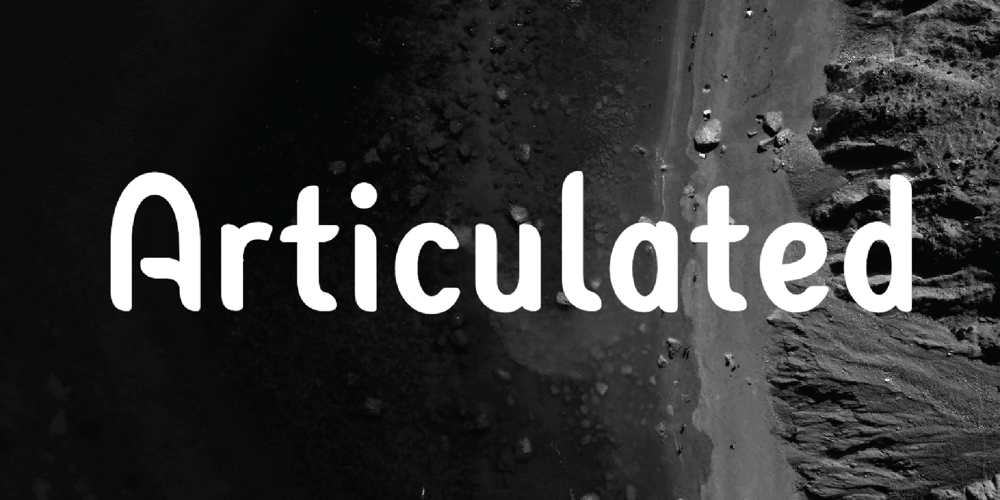
Articulated Font Family was designed by Laurens Art Ramsenthaler and published by Studio Upartig. Articulated contains 6 styles and family package options. Articulated is a sans serif font with a focus on soft, rounded corners. The concept is that the Capital letters have the characteristics of lowercase letters, in order to create unique experiences. Articulated is a perfect choice for headlines, unique branding, logo design, posters, marketing, banners, logotype, user interface and editorial design. Handcrafted by Laurens Art Ramsenthaler, each weight supports most Central European & Eastern European languages. A total of 298 glyphs are included.